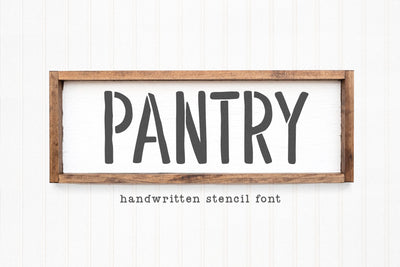
Pantry - Farmhouse Stencil Font
Pantry Stencil is a handwritten farmhouse font.
This font is perfect for farmhouse signs, svg designs, wall art, social media, logos and more!